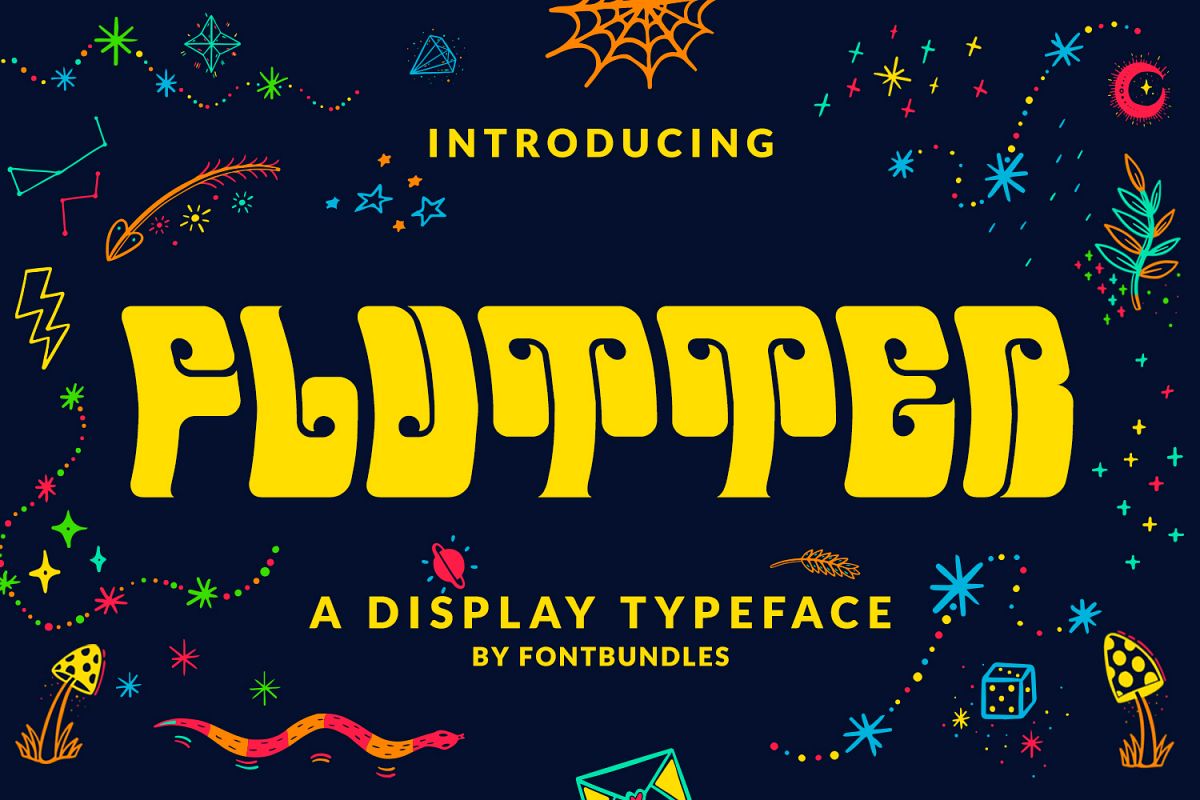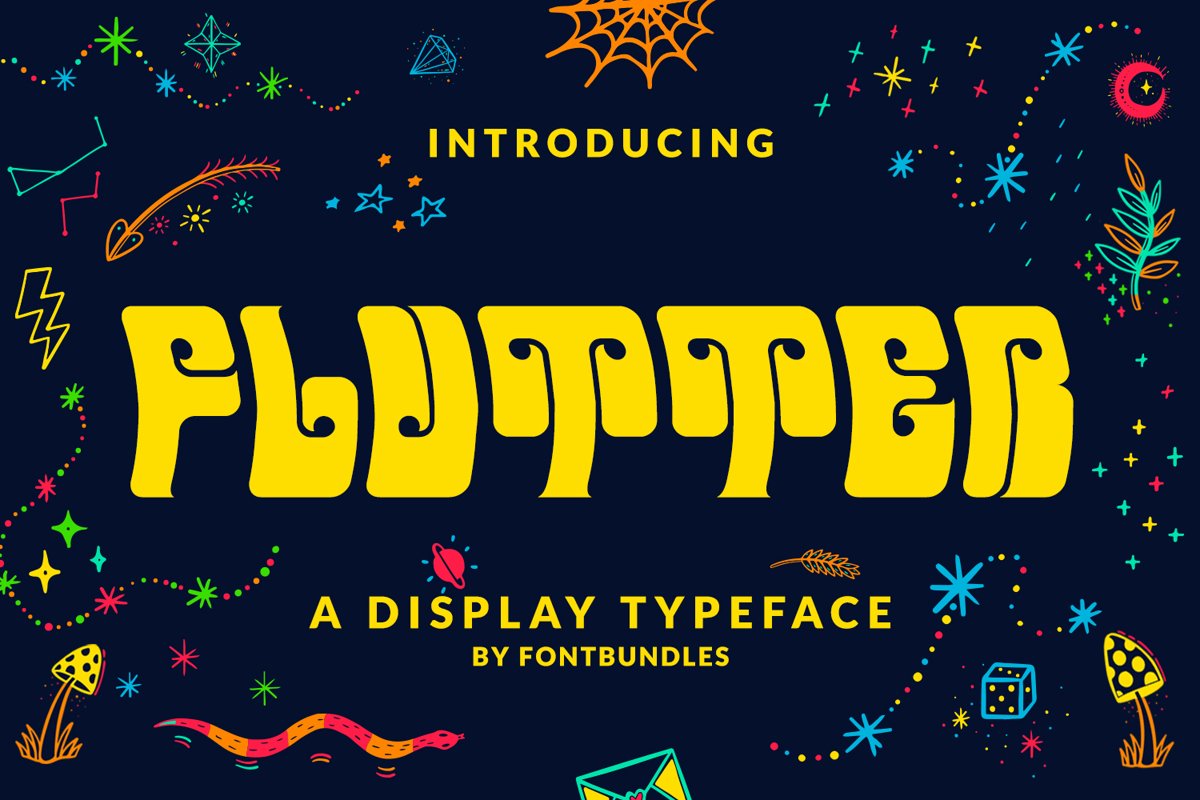
Flutter is a retro style psychedelic display typeface. Flutter mainly intent for logo, headings, branding, magazine, cover album, book cover, movie, apparel design, quotes, invitations, flyer, poster, greeting cards, product packaging, printed quotes, etc